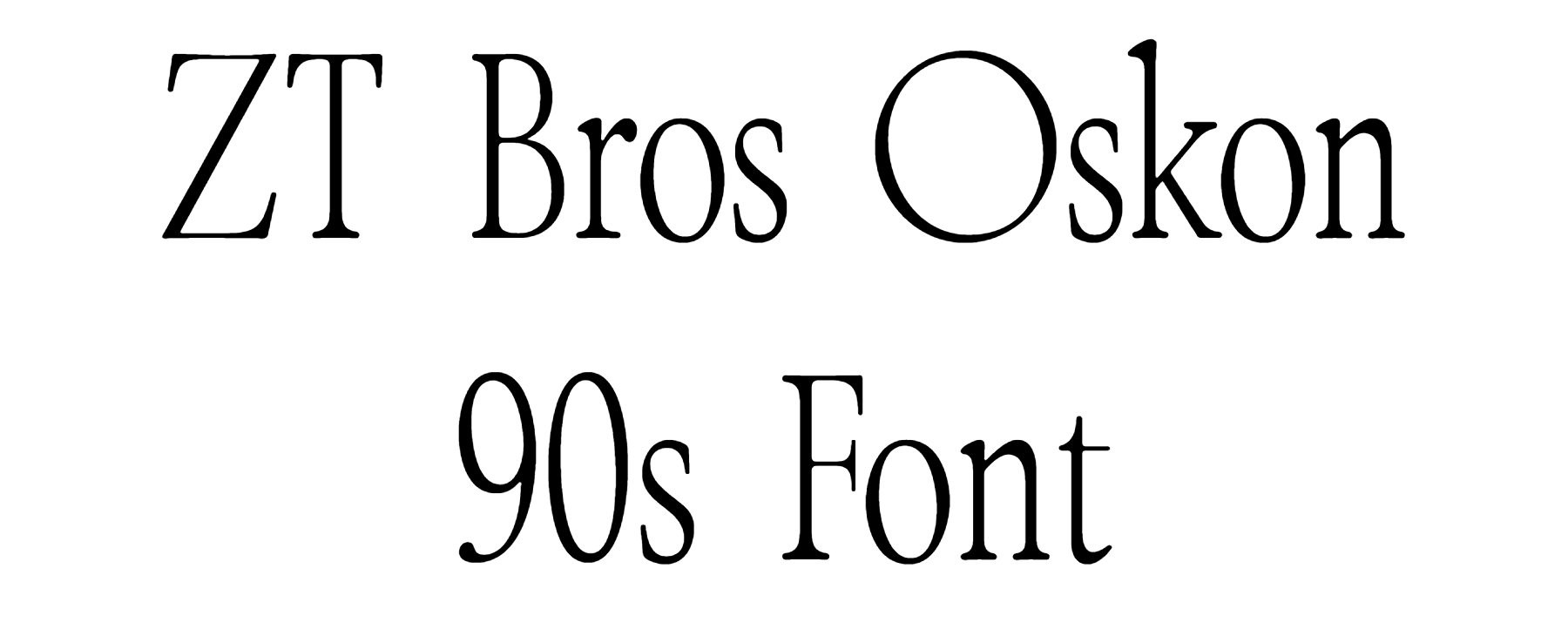
ZT Bros Oskon 90s Font Family
Khairun Nas of Zelow Type designed ZT Bros Oskon 90s, a highly versatile, retro-inspired serif font family to capture the nostalgic, high-end editorial aesthetic of the 1990s while retaining a crisp, modern finish. You can download the typeface for commercial use from DafontStyle.
ZT Bros Oskon 90s Font Family is a serif font created by Khaiuns and released through khairunnas. It has the traditional, bookish feel of type you see in novels, newspapers and long-established brands. The free download includes six styles, and you can try every one of them with your own text in the preview above.
- Font styles: 6 (Regular, Extra Light, Light, Light Italic, Extra Light Italic and Italic)
- Glyphs: 438 in the Regular style
What You Can Type With ZT Bros Oskon 90s Font Family
You get every letter from A to Z in both cases and all the numbers from 0 to 9, which means ZT Bros Oskon 90s Font Family can handle full sentences, dates and prices. Everyday marks like &, !, ? and @ are there too. Thanks to its accented letters, it also works for Spanish, French, German, Portuguese and Italian, not just English.
Where ZT Bros Oskon 90s Font Family Works Best
ZT Bros Oskon 90s Font Family is a natural fit for book covers, magazine headlines and classic branding. Serif fonts shine in headlines and printed text. For long paragraphs on phones, check that it still reads well at small sizes. Because the family has more than one style, you can mix them in a single design for headings, subheadings and highlights.
Does ZT Bros Oskon 90s Font Family support accented letters?
Yes. ZT Bros Oskon 90s Font Family includes the accented letters needed for Spanish, French, German, Portuguese and Italian, so it works for more than just English.